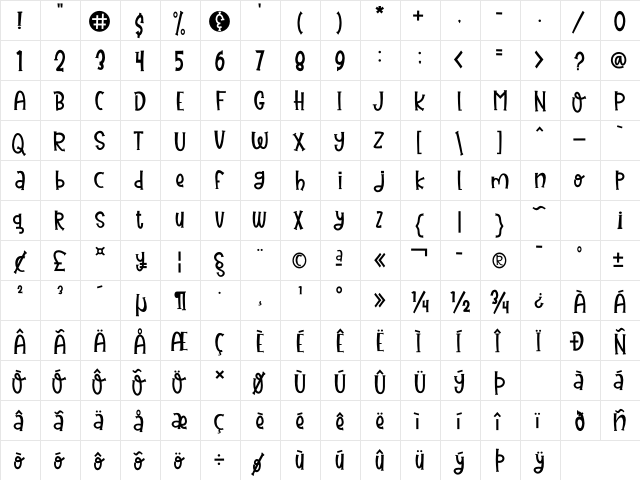
Juice Blueberries Regular
| Designer | Sya'dan Ismail Rosyad |
Design Context for Juice Blueberries Typeface
Juice Blueberries is a composed and adaptable typeface that performs quietly and consistently across a wide range of design contexts.